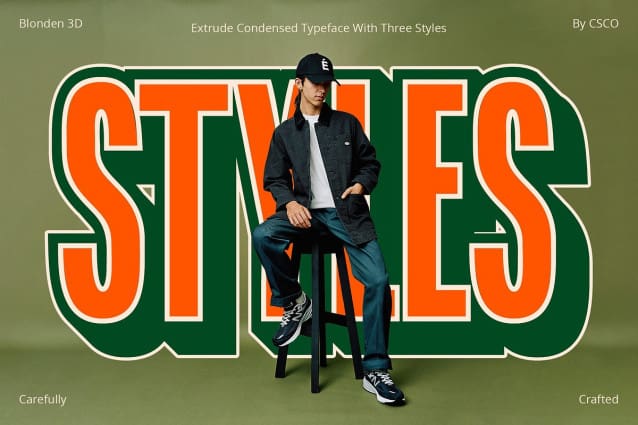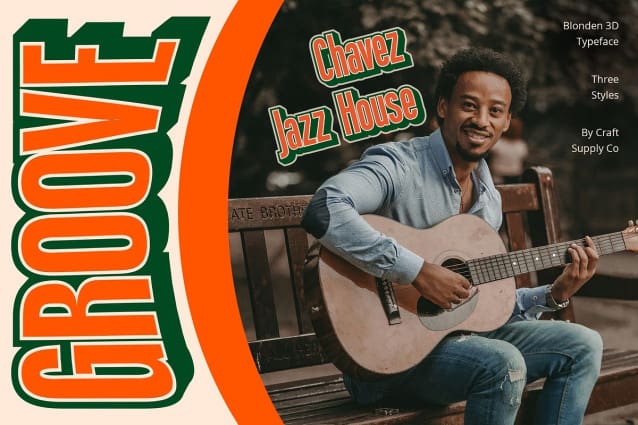
Blonden 3D Font
Blonden 3D Font stands tall with its bold sans serif design, commanding attention in any display setting. Its towering presence ensures maximum impact, making it ideal for catching the eye.
Dynamic 3D Effects With its immersive 3D effects, This font goes beyond conventional flat typography. Each letter pops out of the screen or page, adding depth and dimension to your designs with stunning realism.
Tailored for Display Crafted specifically for display purposes, This font excels in grabbing attention. Whether on posters, billboards, or digital screens, its bold and three-dimensional appearance ensures that your message gets noticed.
Versatile Application While This font shines in display contexts, its versatility extends to various design projects. From branding to advertising and beyond, its boldness and 3D effects add a touch of excitement to any visual composition.
Boldness in Three Dimensions This font emerges as a powerhouse in display typography, combining boldness with dynamic 3D effects. Its striking appearance and versatility make it an essential tool for designers seeking to create eye-catching and impactful displays. Step into the world of This font and elevate your designs to new heights of visual appeal.